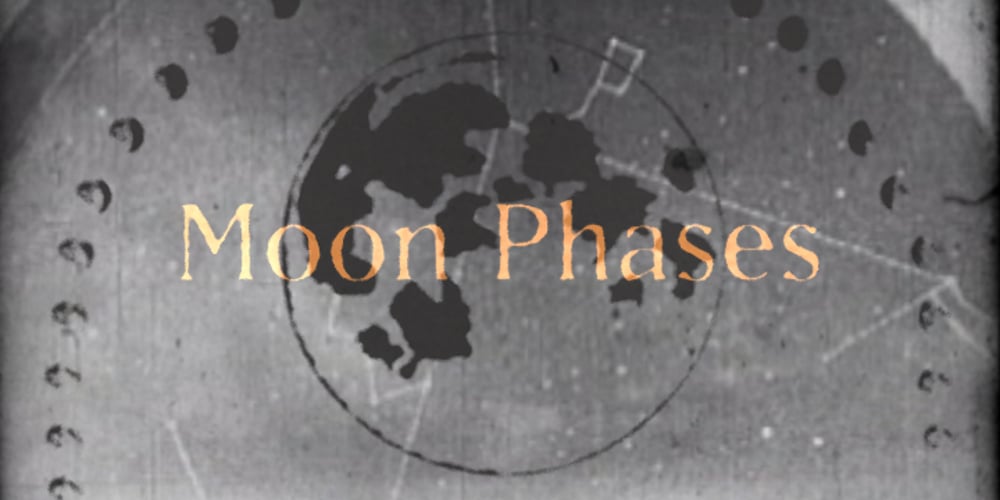
Moon Phases Font Family was designed by Jason Warriner and published by Fascination Workshop. Moon Phases contains 1 styles and family package options. Moon Phases documents the phases of the moon over time. Great for animation, signs, greeting cards, posters, etc. The phases of the moon follow the alphabetical order. Upper and lower case characters are the same. For a character map, see the gallery.